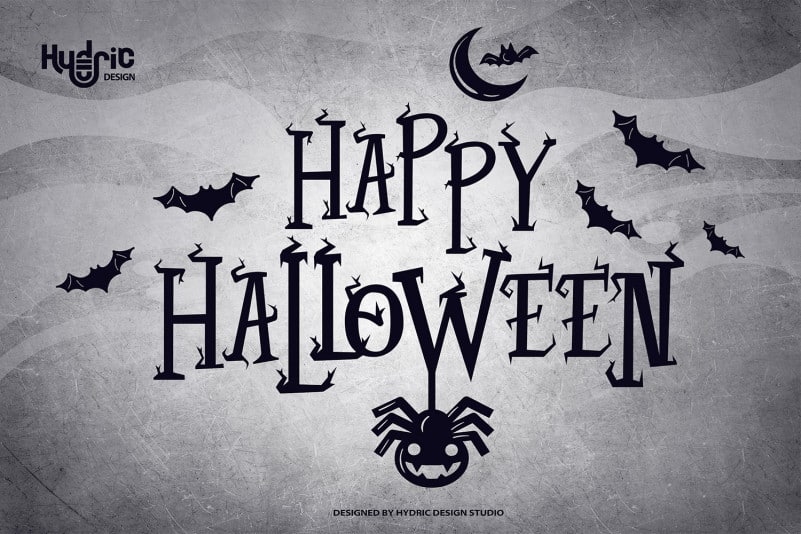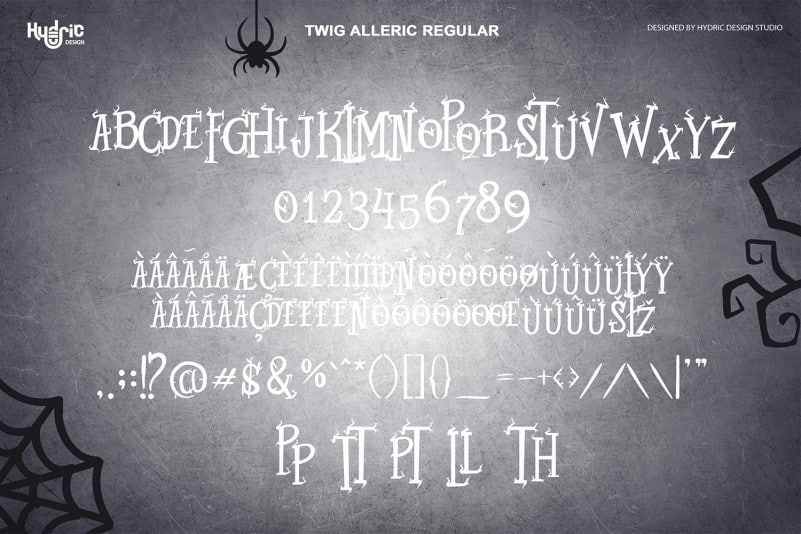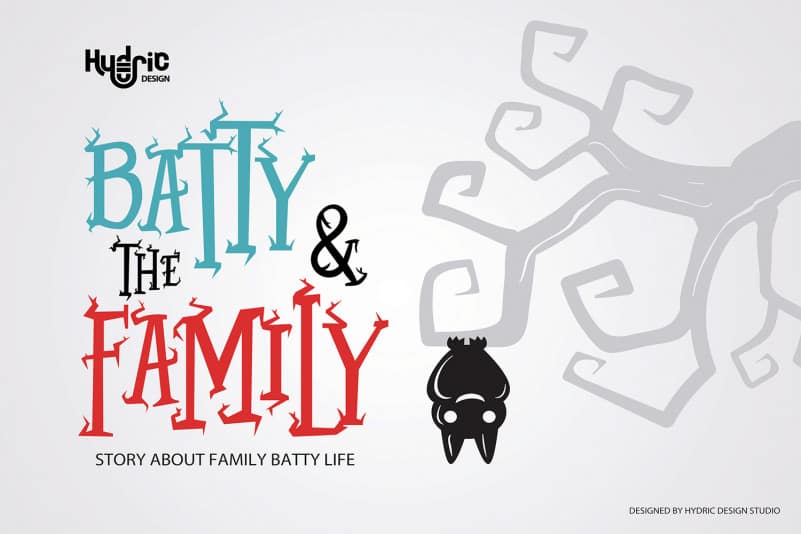
Twig Alleric Display Font is a gothic display font with a Fantasy, Creepy & Mystical feel with lots of curly and sharp , this font inspired by twig of a dead tree and fantasy movies!
Twig Alleric Display Font offers you a scary and wicked atmosphere to your design projects. Suitable for book/novel or movie title, logos & branding, social media posts, advertisements & product designs, etc.